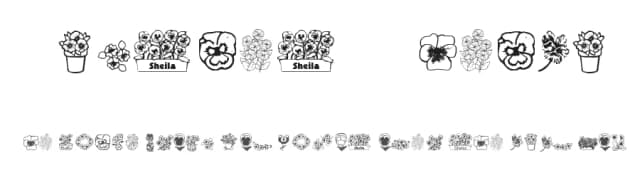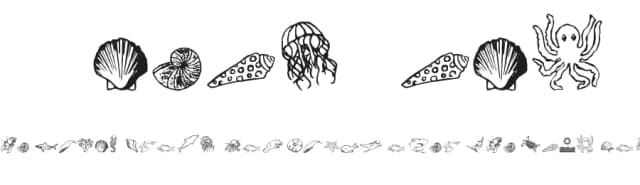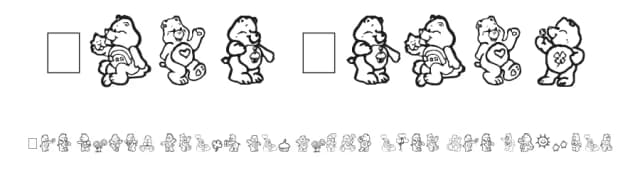
About Charming Symbols Font
Charming Symbols is a dingbat font designed by Iacy. It includes 652 glyphs, a regular weight, TTF (TrueType) format, and 248 languages. Charming Symbols is free to download; check the license details on this page before commercial use. Dingbat fonts like Charming Symbols work best for icons, ornaments, bullet points, and decorative accents.
Charming Symbols Font is a versatile dingbats font that works for both headings and body text. Pair it with a contrasting sans-serif or serif font to add visual interest and a clear distinction between titles and body copy.
Charming Symbols Font
by Iacy
Charming Symbols Font is a dingbats typeface by Iacy, ideal for logos, invitations, branding, and creative projects.